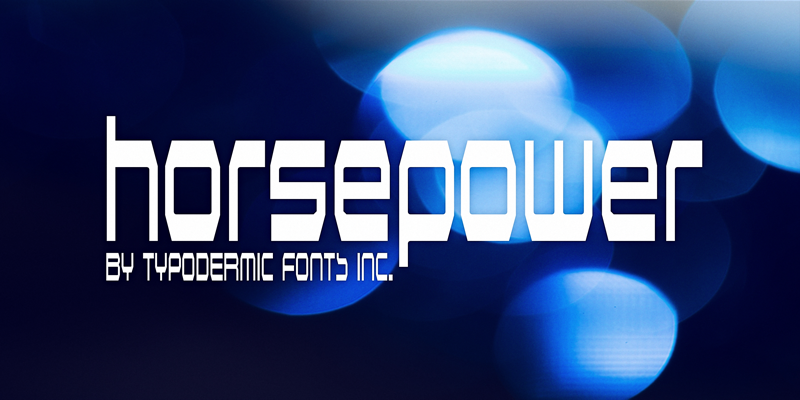
Font name: | Horsepower |
Horsepower is a strained digital display font. This font includes a license that allows free commercial use: sometimes referred to as a desktop license. This allows you to install the font on a computer and use it to create posters, web graphics, game graphics, t-shirts, videos, signs, logos and more. Read the license agreement for details. If you'd like to embed this font in an app, ebook, on the web or anything that's not covered by the desktop license agreement, visit the link below. You'll find distributors who offer different types of licenses or you can contact me for help. http://typodermicfonts.com/horsepower/ |